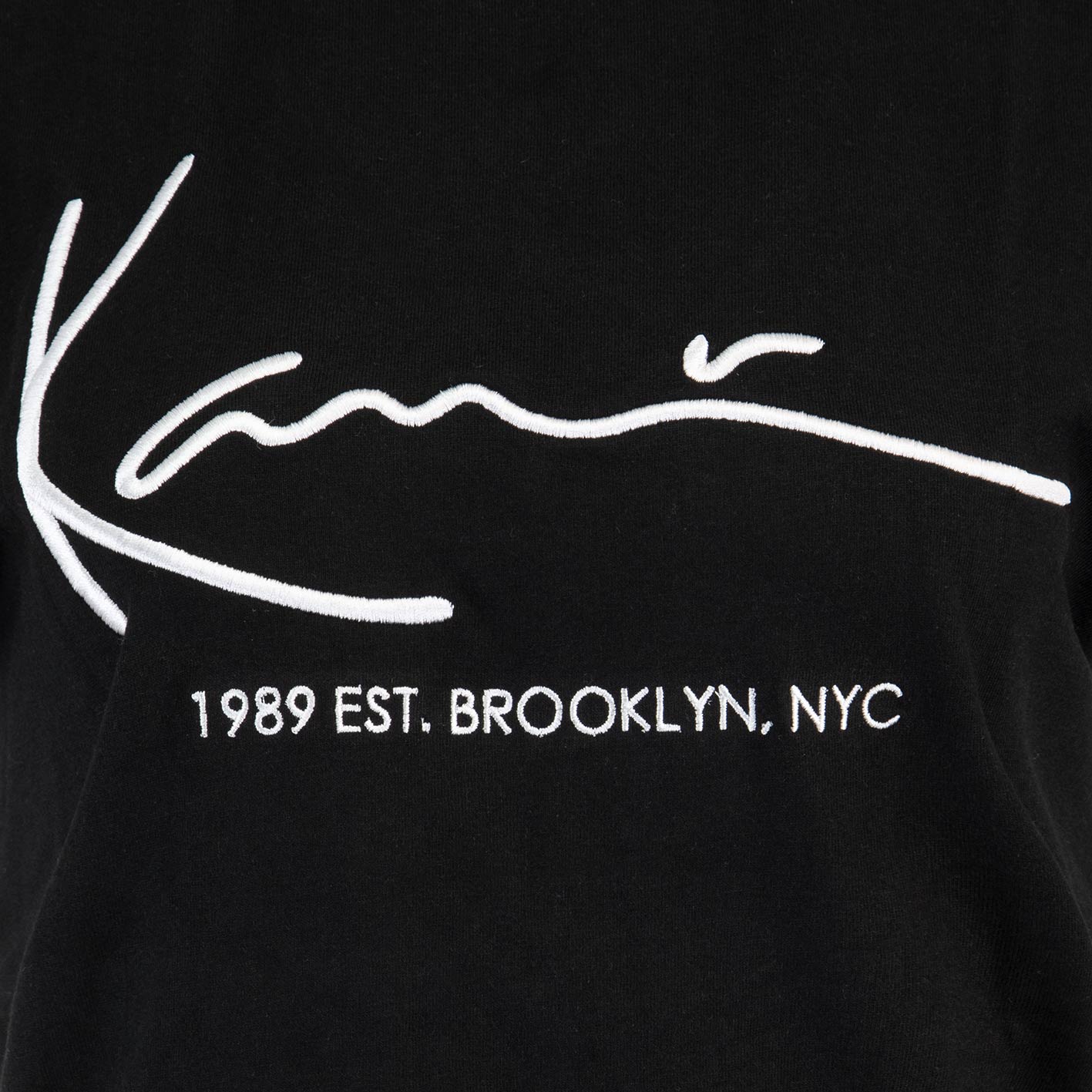
Karl Kani Font . Web karl kani brand font. Web 956 votes, 43 comments.
Karl Kani Font - The closest i been working with is athena signature. Karl kani has truly gone from rags to riches. Web find the karl kani style guide with brand assets such as logos, colors, fonts, and more. Web download more than 10,000 free fonts hassle free, desktop and mobile optimized, around for more than 20 years. Web 956 votes, 43 comments.
Karl Kani Font - Karl kani has truly gone from rags to riches. Browse by alphabetical listing, by style, by author or by popularity. This is an example of it embroidered on a coat. Web kanit means mathematics in thai, and the kanit typeface family is a formal loopless thai and sans latin design. Web 956 votes, 43 comments.
Karl Kani Font - Web that was his actual signature. Web download more than 10,000 free fonts hassle free, desktop and mobile optimized, around for more than 20 years. This is an example of it embroidered on a coat. You will have to manipulate it. Jan 05, 2024 at 23:34.
Karl Kani Font - This is an example of it embroidered on a coat. Web that was his actual signature. Web find the karl kani style guide with brand assets such as logos, colors, fonts, and more. You will have to manipulate it. The closest i been working with is athena signature.
Karl Kani Font - Web kanit means mathematics in thai, and the kanit typeface family is a formal loopless thai and sans latin design. Web archive of freely downloadable fonts. The closest i been working with is athena signature. Web karl kani brand font. This is an example of it embroidered on a coat.
Karl Kani Font - Web download more than 10,000 free fonts hassle free, desktop and mobile optimized, around for more than 20 years. Web that was his actual signature. You will have to manipulate it. Web karl kani brand font. This is an example of it embroidered on a coat.
Karl Kani Font - Web 956 votes, 43 comments. Jan 05, 2024 at 23:34. Web download more than 10,000 free fonts hassle free, desktop and mobile optimized, around for more than 20 years. Web find the karl kani style guide with brand assets such as logos, colors, fonts, and more. Known as the ???godfather of urban streetwear???, he now finds himself looking over the.
Karl Kani Font - Web kanit means mathematics in thai, and the kanit typeface family is a formal loopless thai and sans latin design. Web find the karl kani style guide with brand assets such as logos, colors, fonts, and more. Web download more than 10,000 free fonts hassle free, desktop and mobile optimized, around for more than 20 years. 552k subscribers in the.
Karl Kani Font - Known as the ???godfather of urban streetwear???, he now finds himself looking over the. Karl kani has truly gone from rags to riches. Browse by alphabetical listing, by style, by author or by popularity. Web that was his actual signature. 552k subscribers in the playboicarti community.
Karl Kani Font - Karl kani has truly gone from rags to riches. Web kanit means mathematics in thai, and the kanit typeface family is a formal loopless thai and sans latin design. 552k subscribers in the playboicarti community. The closest i been working with is athena signature. This is an example of it embroidered on a coat.